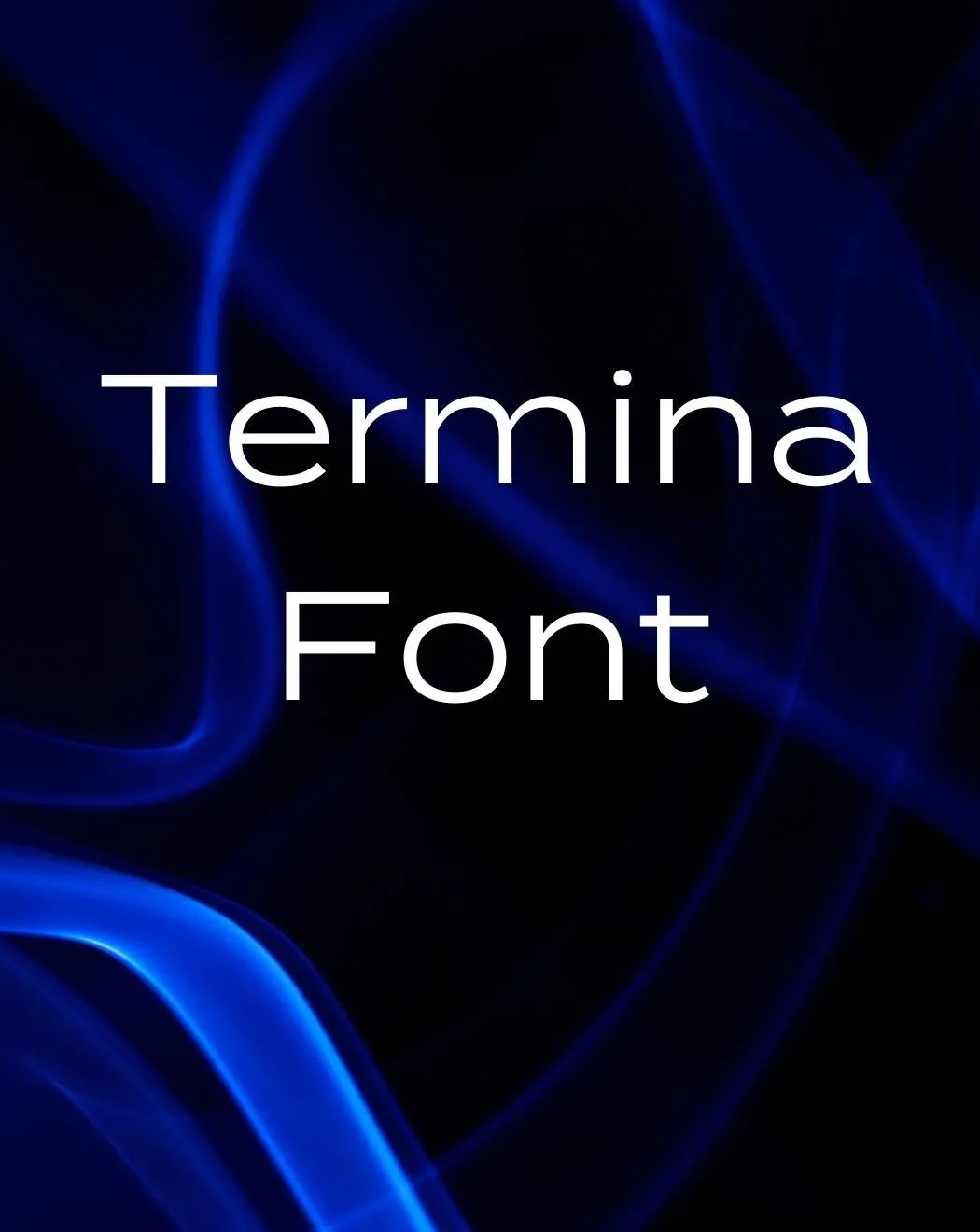
Termina Font Free Download. Web termina | adobe fonts. Termina sans serif font is a powerful and bold sans, perfect for web headings and logos.
Web termina | adobe fonts. Termina sans serif font is a powerful and bold sans, perfect for web headings and logos. Web termina font family.
Web termina font family. Termina sans serif font is a powerful and bold sans, perfect for web headings and logos. Web termina | adobe fonts.